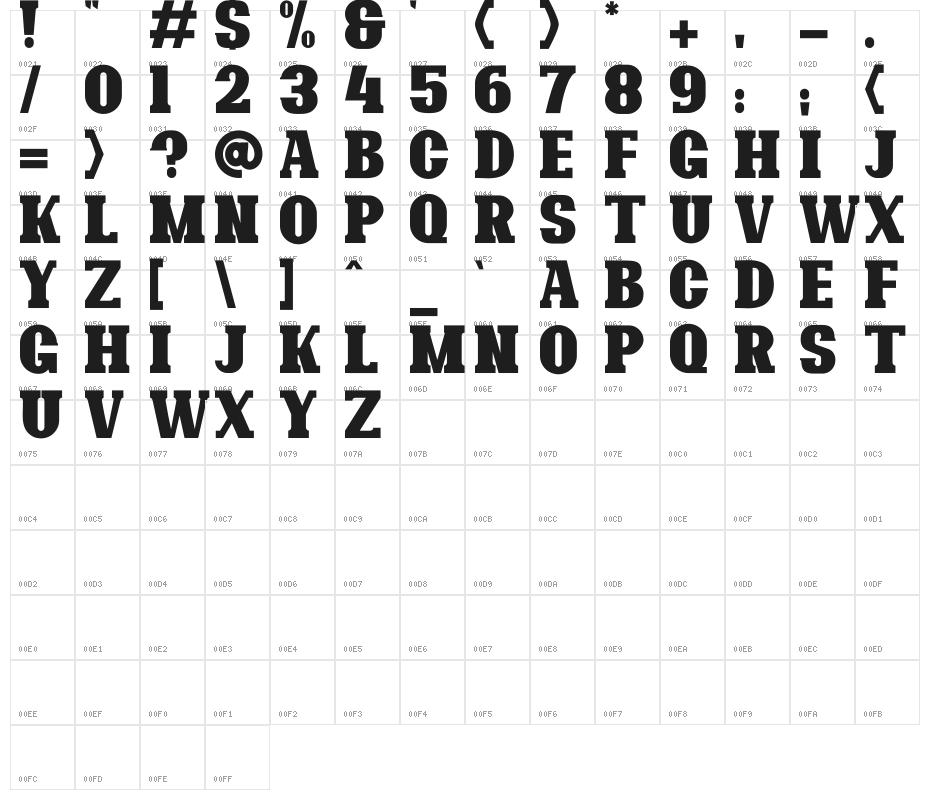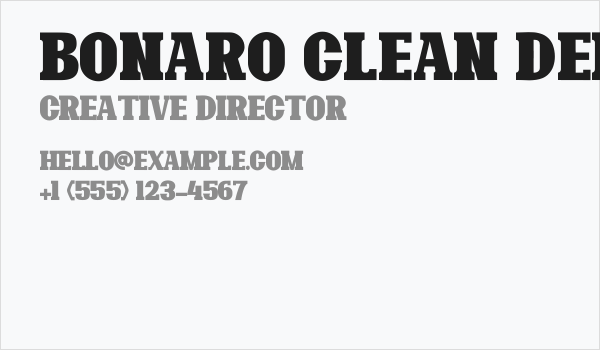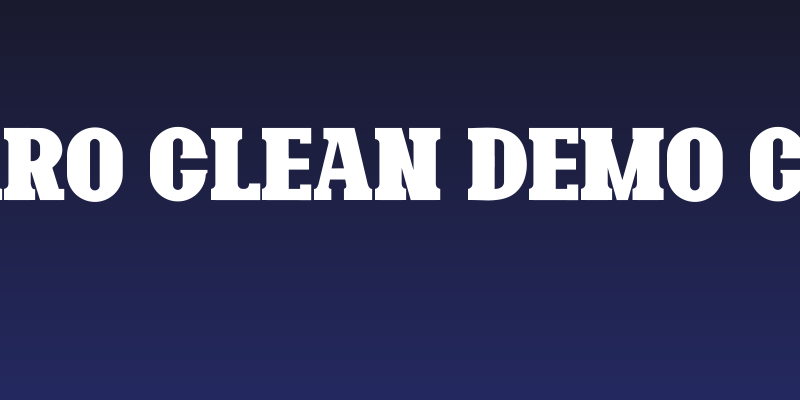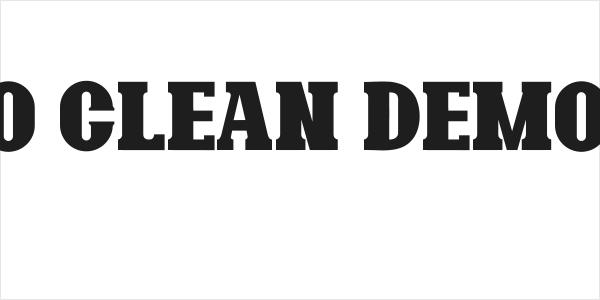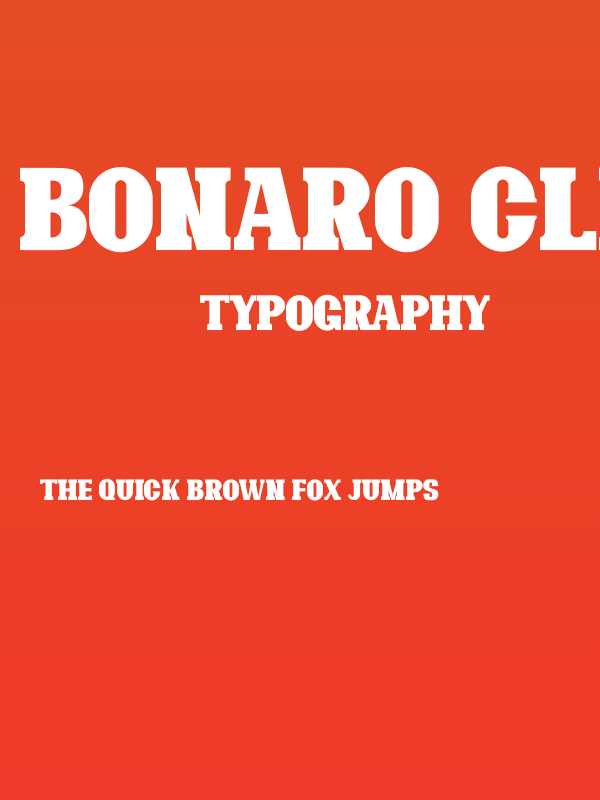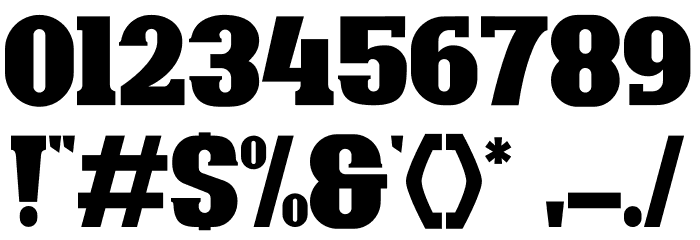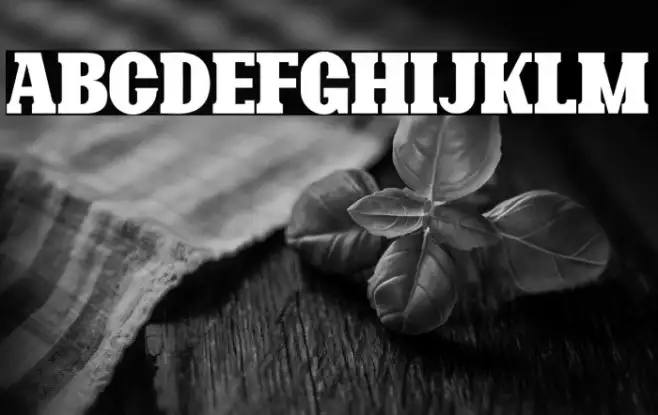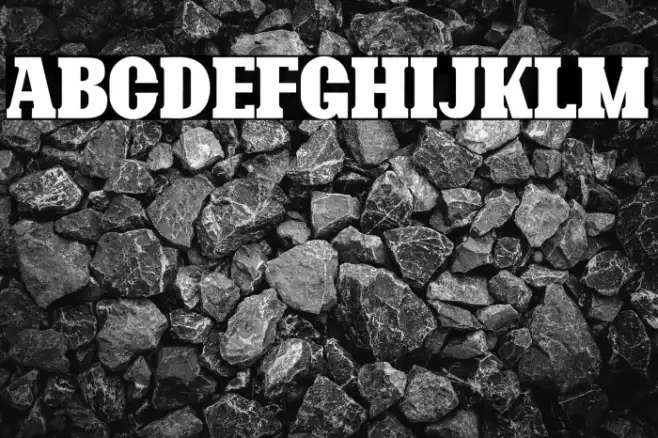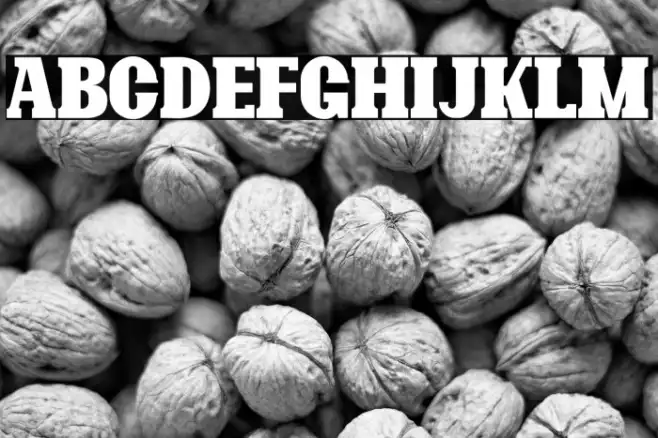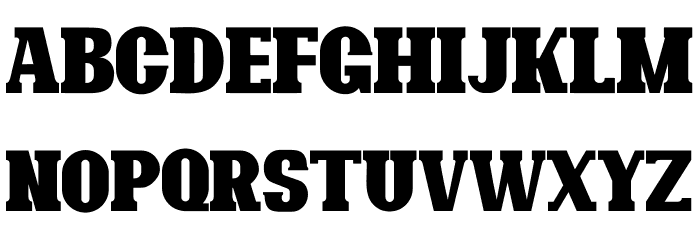
Bonaro Clean Demo Clean Font
Bonaro Clean Demo Clean Description
This font features bold, impactful characters with a strong presence, making it ideal for attention-grabbing designs. The uppercase letters are robust and commanding, with thick strokes and minimal contrast, giving them a solid, uniform appearance. The numerals and special characters maintain this boldness, ensuring consistency across all elements. The font's design is reminiscent of vintage poster typefaces, with a modern twist that enhances its versatility. Its wide character spacing allows for readability even at smaller sizes, while the boldness ensures it stands out in any context.
| Overall Style | Vintage, Modern |
| Proposed Projects | Ideal for posters, headlines, branding, and any project requiring a strong visual impact. |